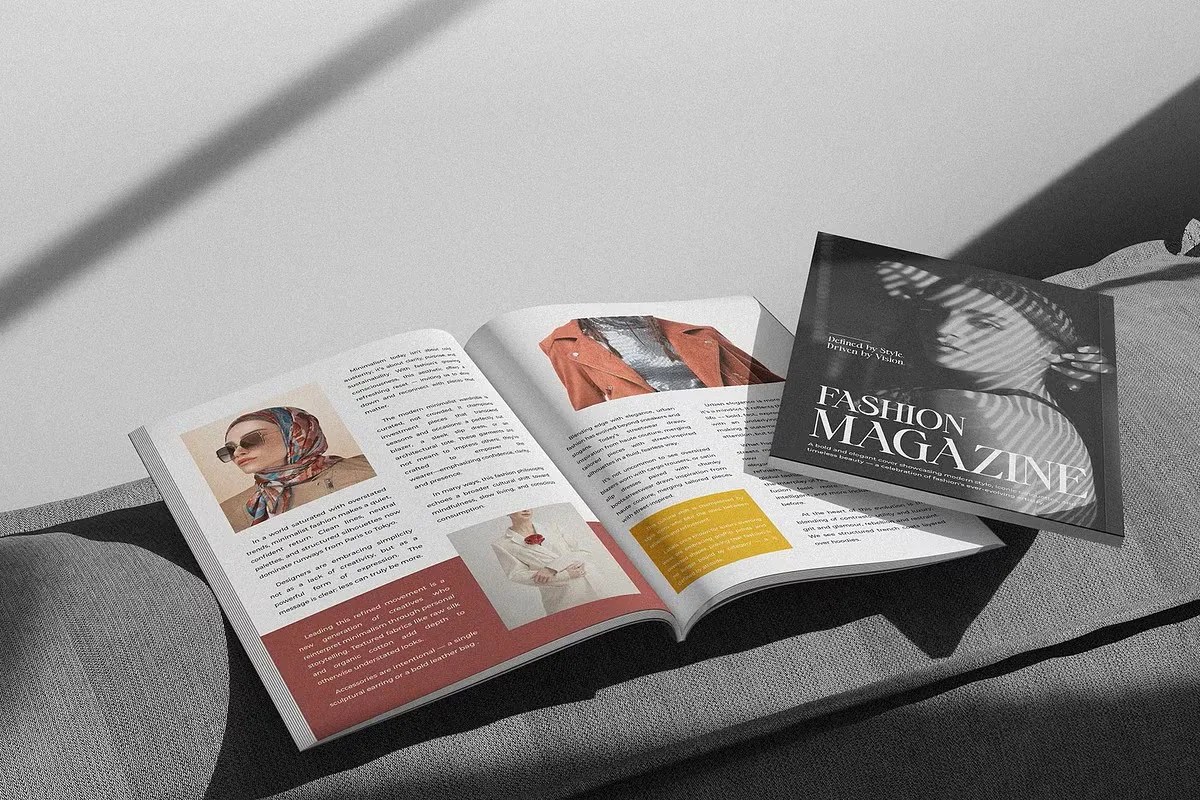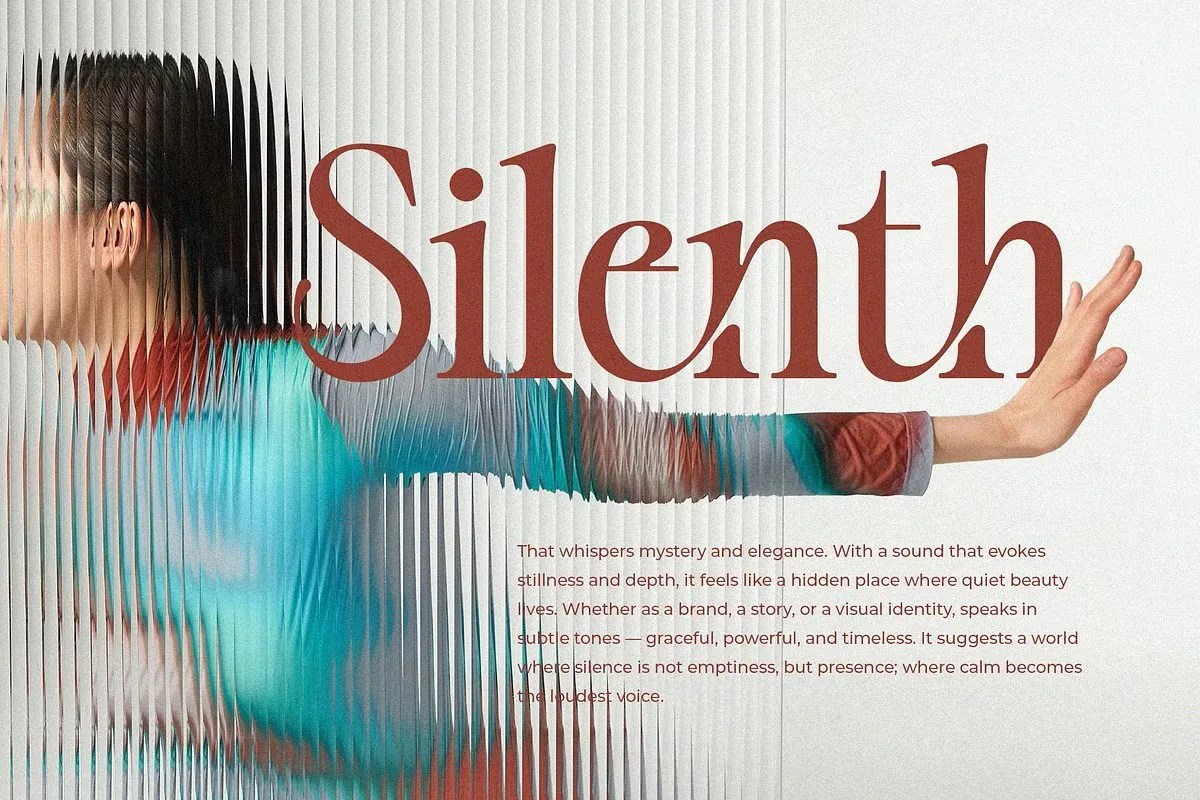
Silvena by BrandSemut. It is an elegant and timeless classic serif font that combines graceful beauty with meticulous, hard-working detail. BrandSemut designed this typeface for exceptional readability and a sophisticated style. Silvena brings a sense of trust and refinement to every project. It proves that elegance and strength can coexist beautifully, creating a powerful tool for designers.
This font is a remarkably versatile tool for any designer. Specifically, its high readability makes it a perfect choice for editorial design. You can confidently use it for body copy in books, magazines, and long-form web articles. Furthermore, this classic serif font lends an air of authority and elegance to professional branding projects. It works wonderfully for authors, consultants, and any brand that values trust and sophistication. It handles any design task with grace and complete reliability.
• Elegant and classic serif style
• Meticulously crafted for high readability
• Ideal for editorial, body text, and sophisticated branding
• Adds a touch of timeless refinement
Silvena